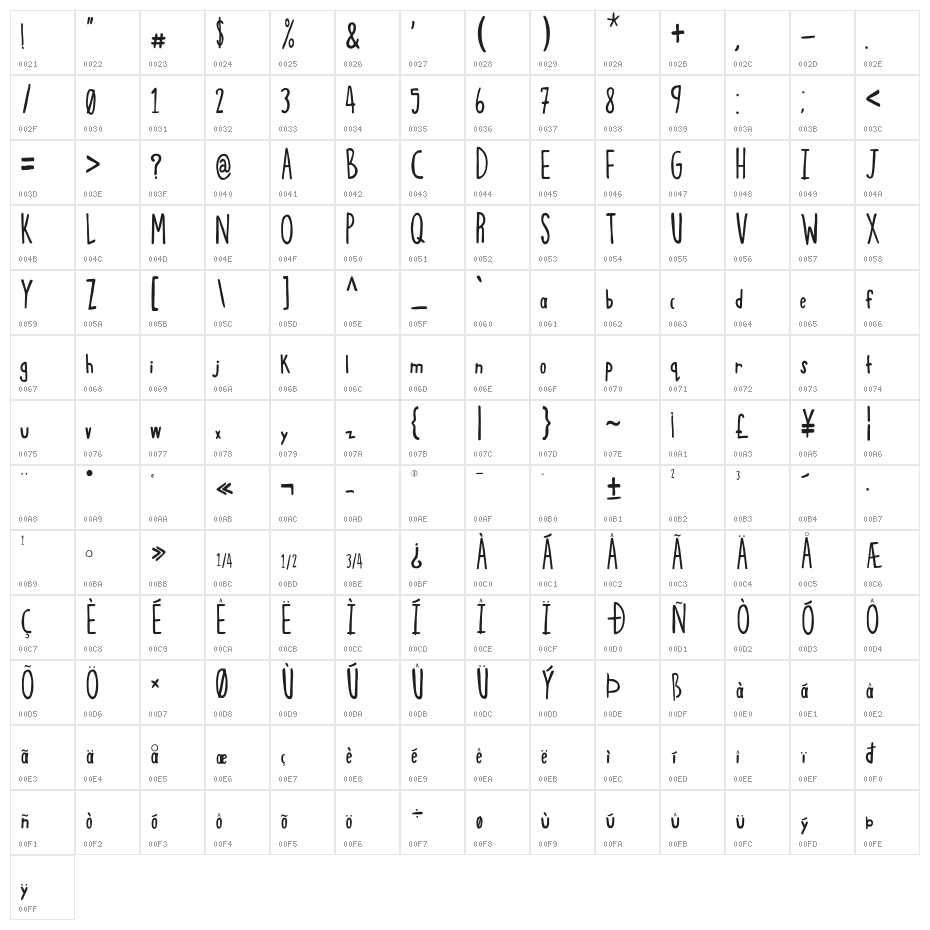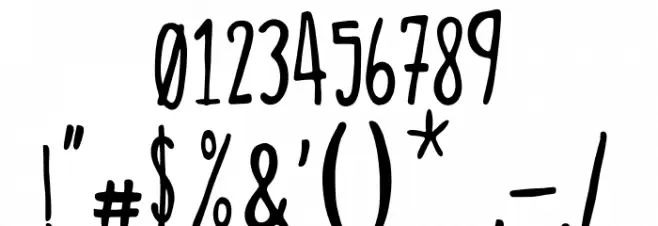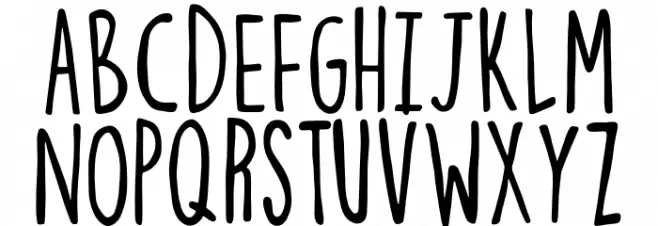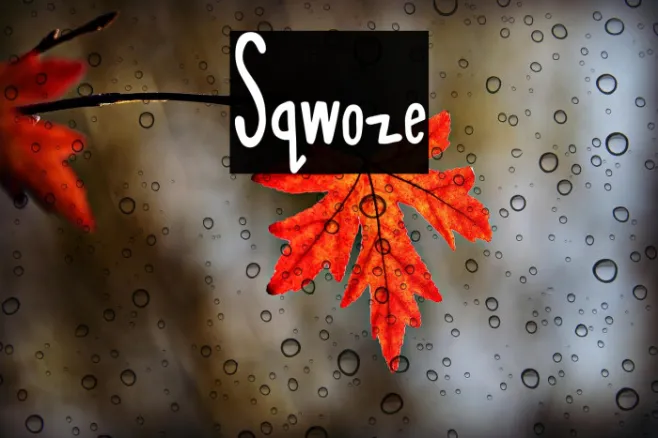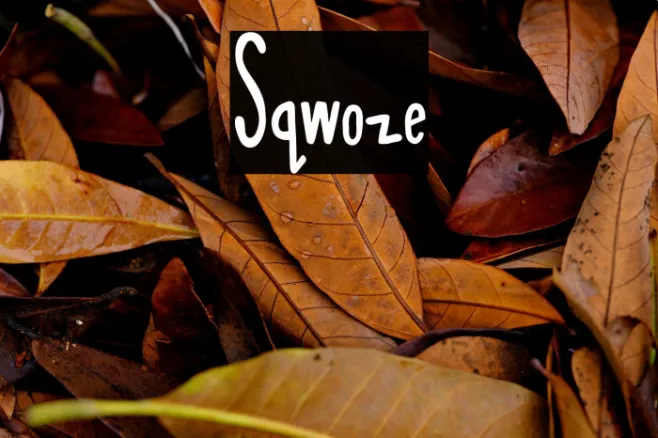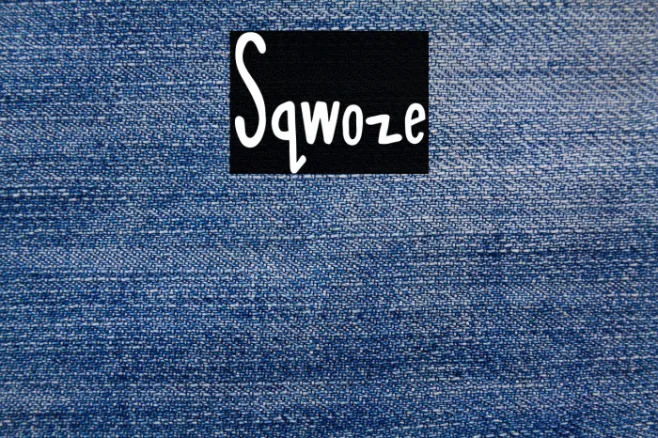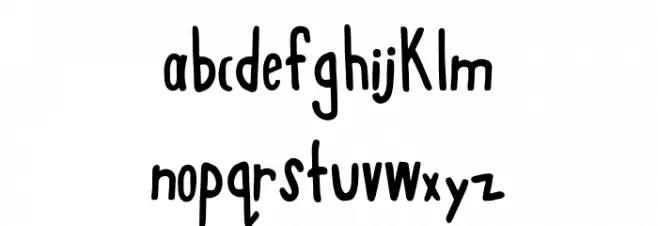
Sqwoze Font
Sqwoze Description
A playful, handwritten font with irregular, elongated characters and a casual style.
| Use Case | Headlines, Informal text, Branding |
| Proposed Projects | Children's books, casual invitations, playful branding. |